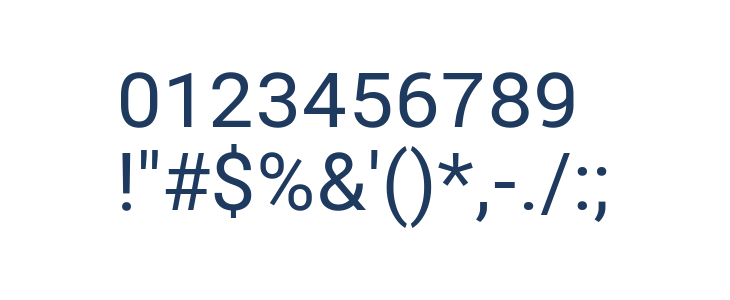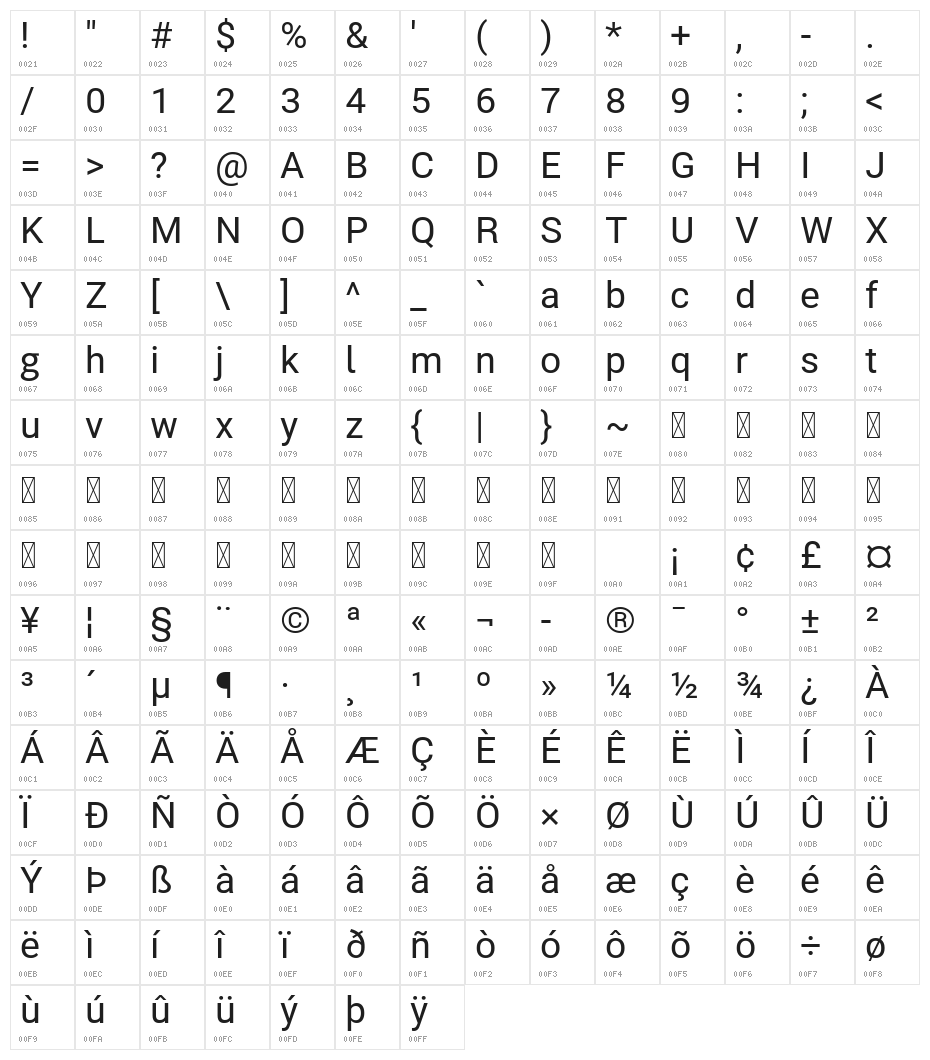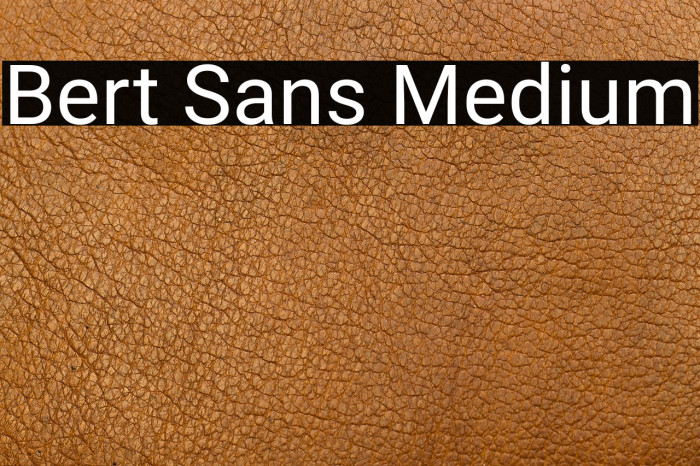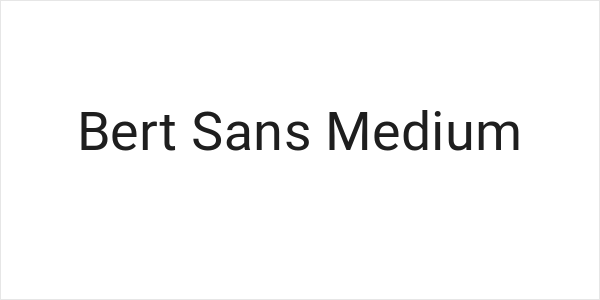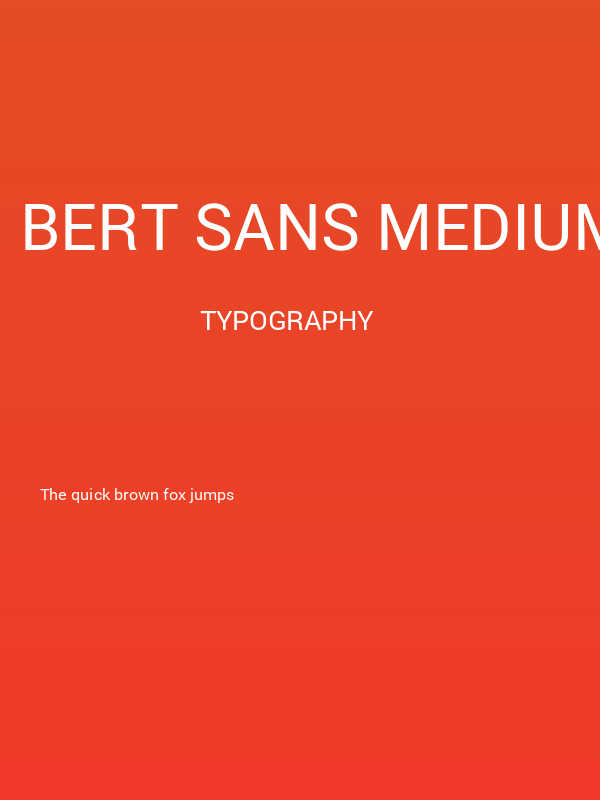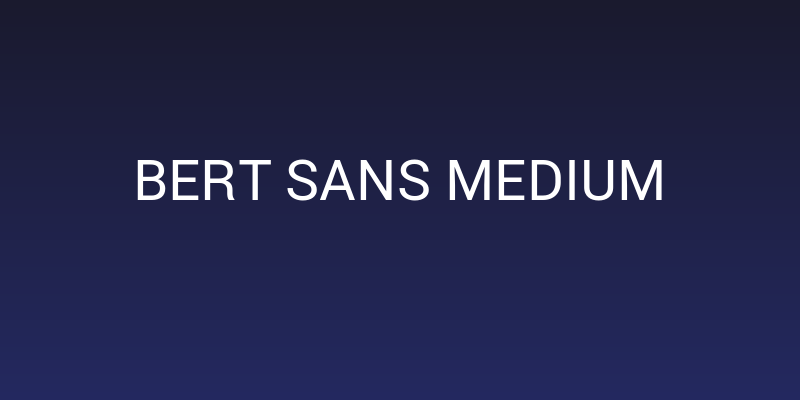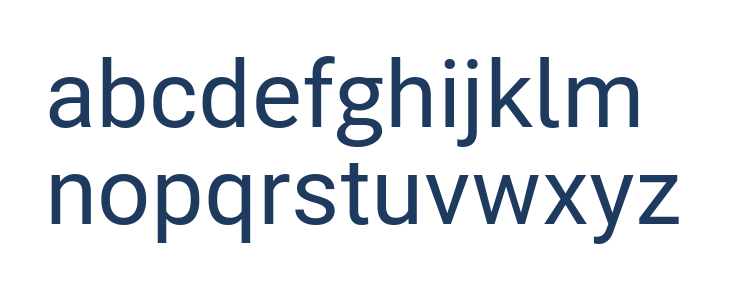
Bert Sans Medium Font
Bert Sans Medium Description
This typeface presents a clean and modern aesthetic, characterized by its sans-serif design. The letters are evenly spaced with a consistent stroke width, providing a balanced and harmonious appearance. The uppercase and lowercase letters are well-proportioned, making them highly legible. The numerals and special characters maintain the same clarity and simplicity, ensuring versatility across various applications. Its straightforward style makes it suitable for both digital and print media, offering a professional and contemporary look.
| Proposed Projects | Ideal for corporate branding, website headers, user interfaces, and editorial design. |